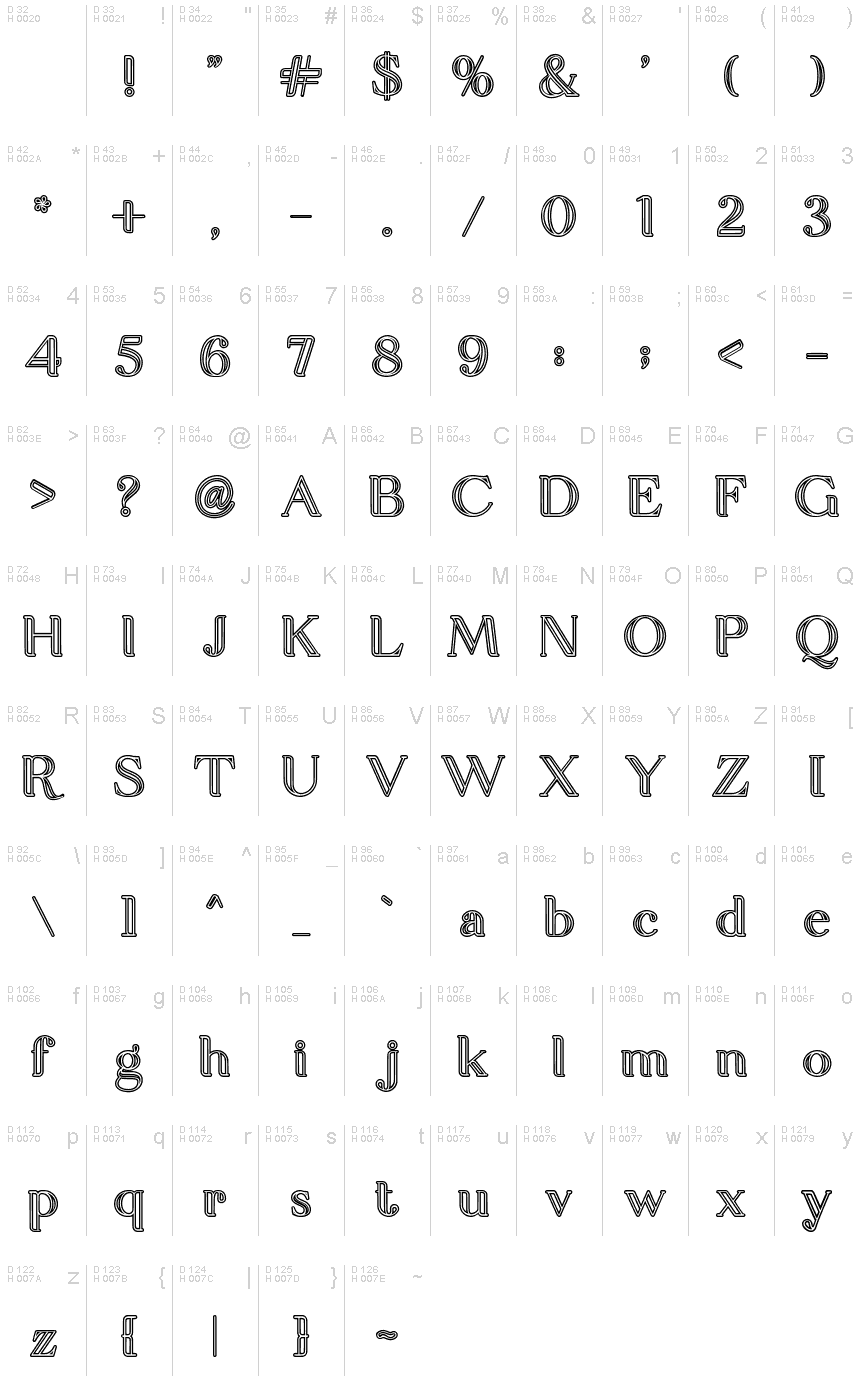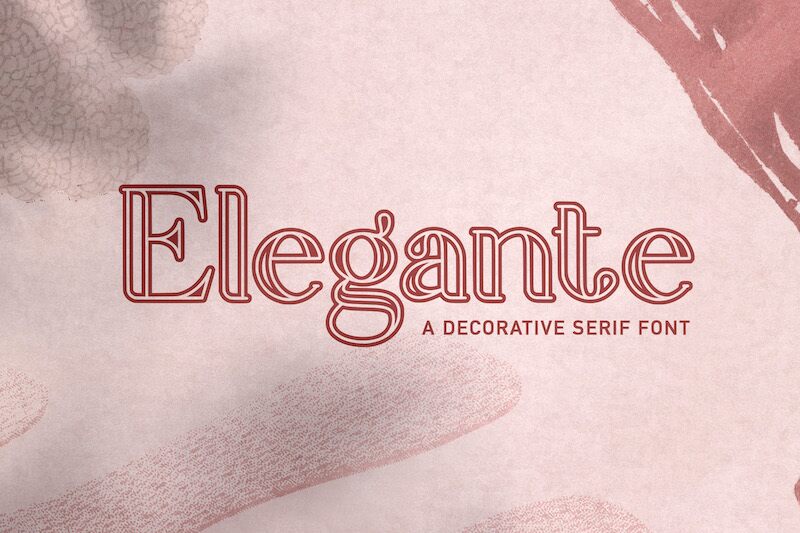
Elegante
Elegante is a stunning display font created by StringLabs Creative Studio. With its retro outlined style and semi-bold weight, this font is perfect for any project that requires a touch of elegance and sophistication. Use it to add a vintage flair to your branding, create eye-catching headlines for your blog posts, or design beautiful invitations for your next event. Whether you're working on digital or print projects, Elegante will make them stand out from the crowd. So why settle for ordinary when you can have extraordinary? Try Elegante today and elevate your designs to new heights!